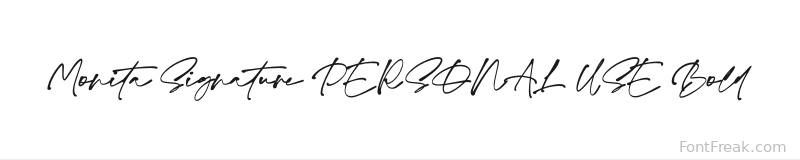
Monita Signature PERSONAL USE Bold
About Monita Signature PERSONAL USE Bold
Monita Signature PERSONAL USE Bold by Mans Greback is a striking handwritten font that exudes elegance and sophistication. This script-style font features fluid, cursive lettering that captures the essence of personal touch, making it perfect for various creative projects. The bold strokes provide a strong presence while maintaining a graceful flow, characterized by moderate contrast in weight. The letters are well-spaced, enhancing readability while retaining a stylish aesthetic.
The font’s decorative elements, including sweeping tails and unique ligatures, contribute to its charm, making it suitable for a range of applications. It shines in wedding invitations, where its romantic flair adds a personal touch to the special day. Additionally, it is ideal for creating eye-catching movie posters that require a blend of artistry and readability. Restaurant menus can also benefit from this font, as it brings a sophisticated feel to the overall design, enhancing the dining experience. Small business branding will find Monita Signature PERSONAL USE Bold particularly advantageous, as it conveys a friendly yet professional identity that resonates with customers.
What truly makes this font stand out is its ability to balance boldness with elegance. Its unique handwritten style captures attention while conveying a sense of warmth and authenticity, making it a perfect choice for anyone looking to make a memorable impression in their design work.